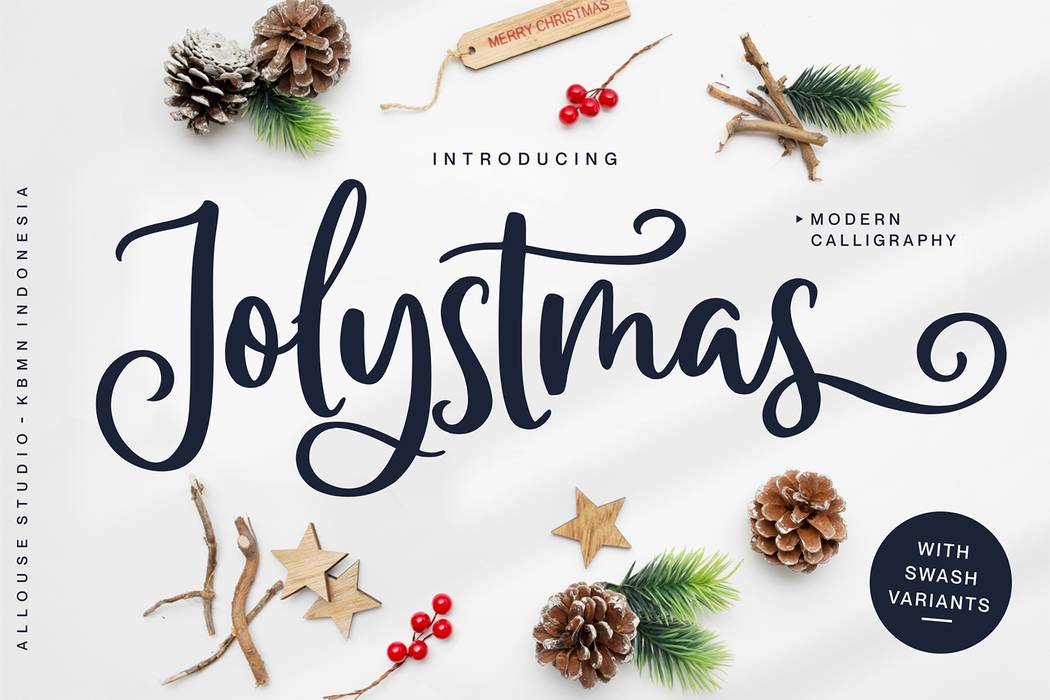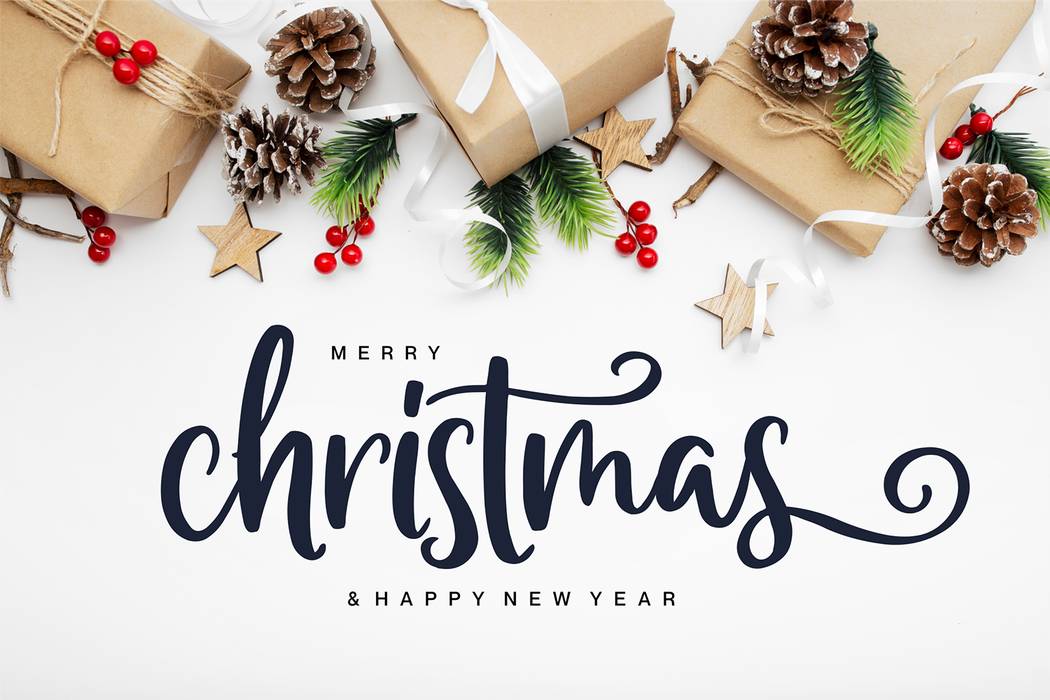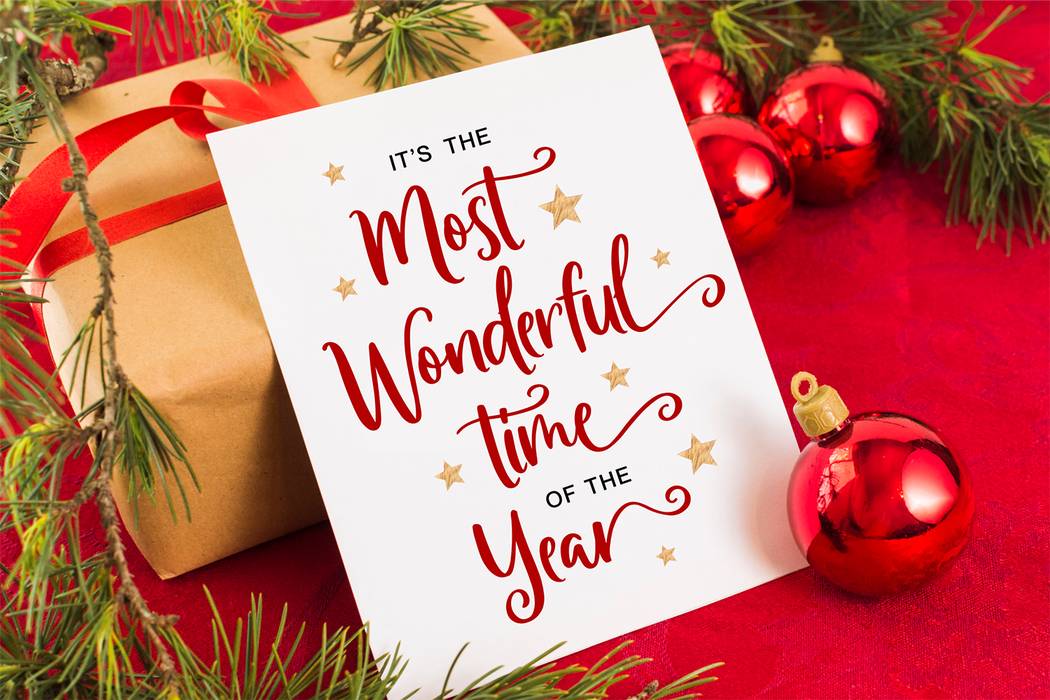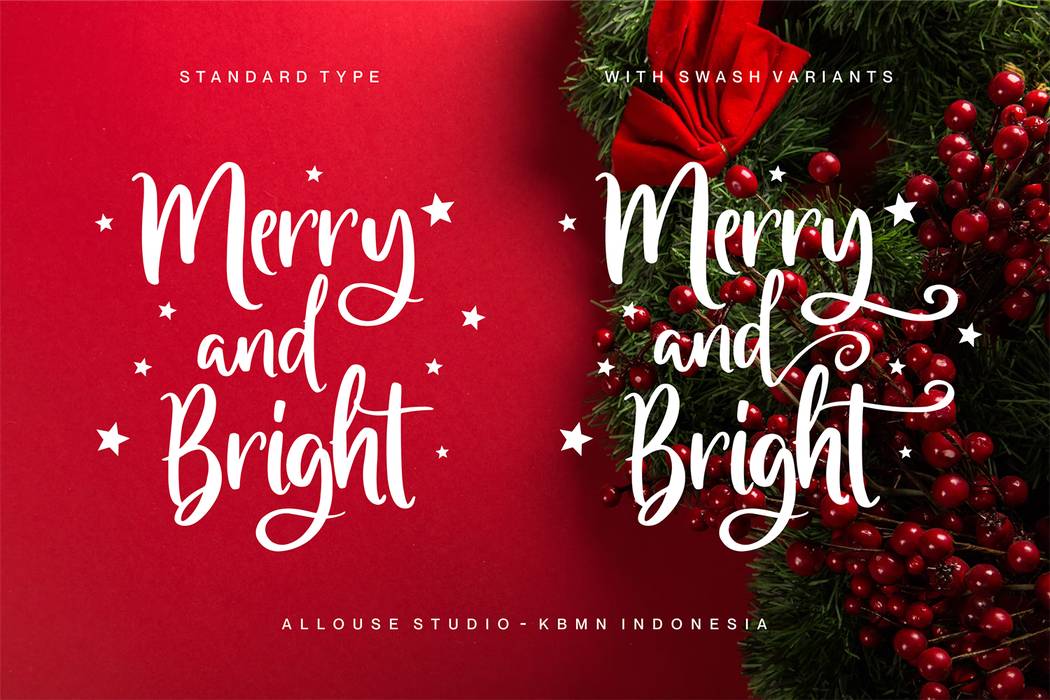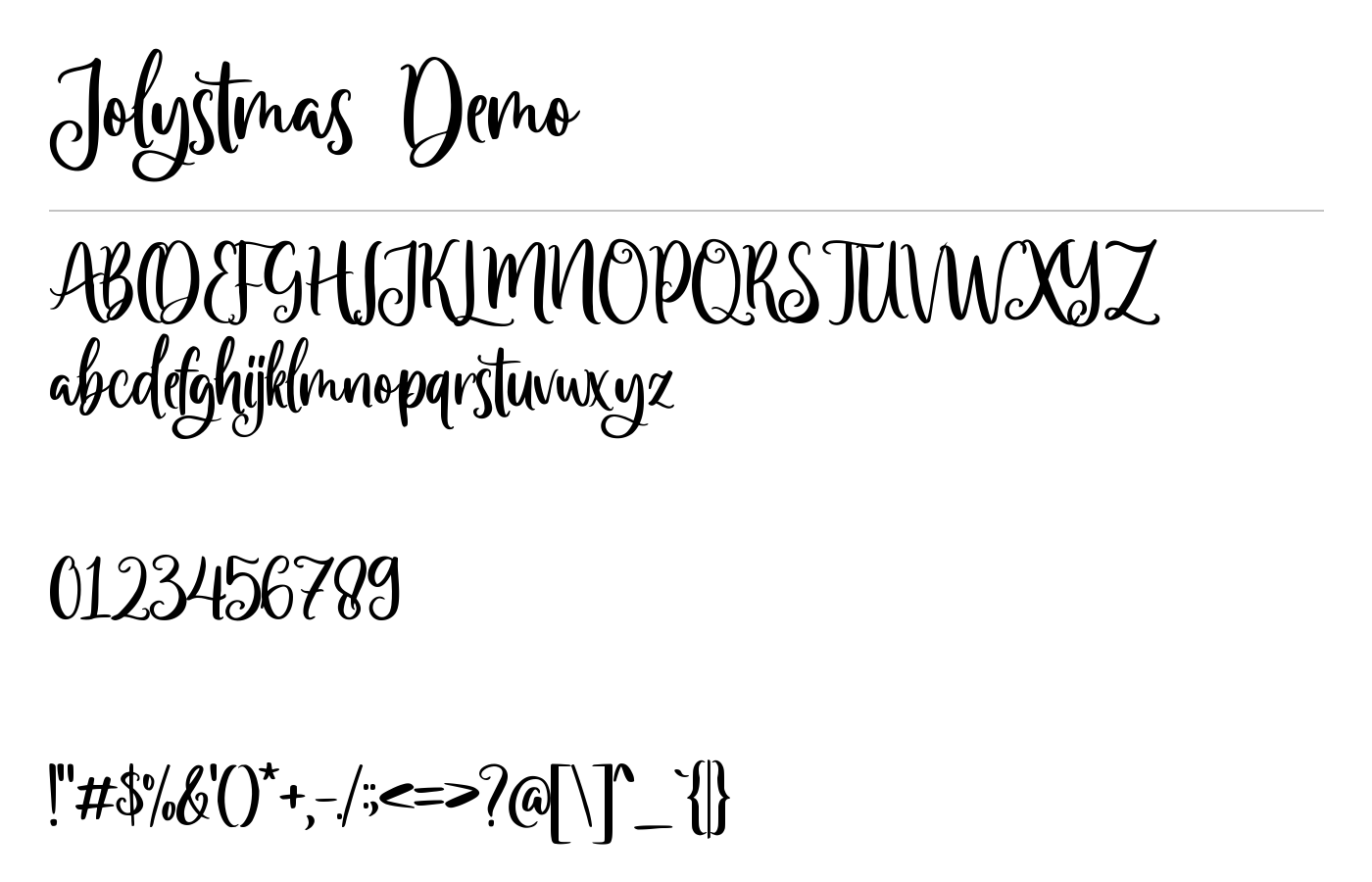
Jolystmas is a lively and whimsical script font with playful flourishes and a handwritten feel, combining elegance with a casual charm. Its medium weight, high contrast, and decorative swashes make it perfect for festive, creative, and joyful designs like holiday cards, invitations, and branding that seeks a spirited and approachable vibe. This font shines in headlines and display uses where its unique personality can truly stand out.
Jolystmas Font
About Jolystmas Font